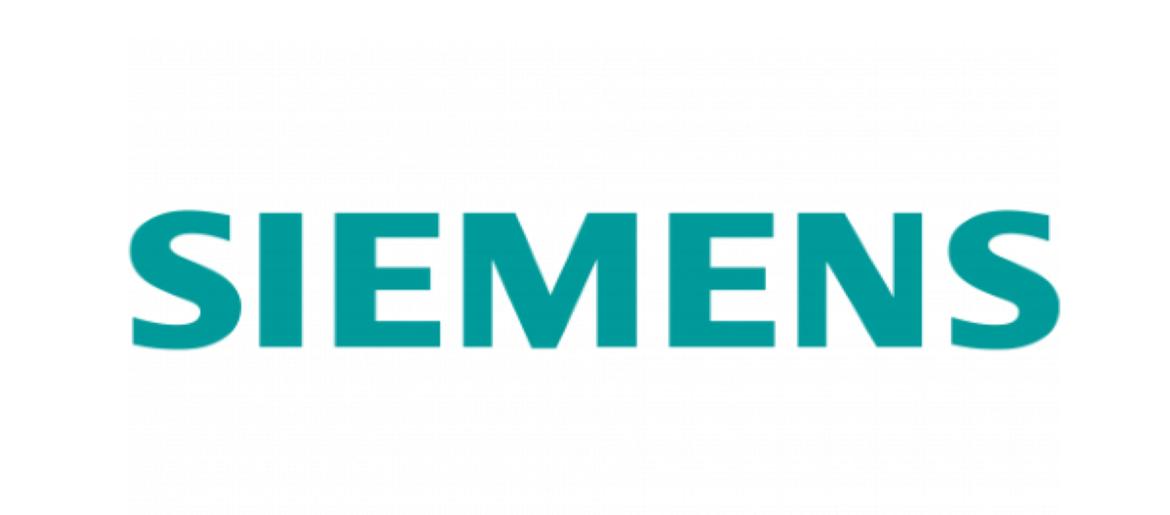
Siemens Font
The Siemens Font is a clean, professional typeface that reflects the company’s commitment to innovation, technology, and reliability. Its minimalist design emphasizes clarity and readability while projecting trust and forward-thinking qualities. This free alternative captures the essence of Siemens’ strong, modern visual identity.
About Siemens
The Siemens Font embodies the identity of one of the world’s leading technology companies. Known for its contributions to energy, healthcare, mobility, and industrial automation, Siemens uses its typography to convey professionalism, reliability, and innovation. By consistently applying this typeface across branding, digital platforms, and marketing materials, the company ensures a cohesive and recognizable visual presence. Designers seeking a clean, modern sans-serif style can use this alternative font to replicate Siemens’ look, highlighting clarity, trustworthiness, and a forward-looking approach in corporate and technology-focused design projects.